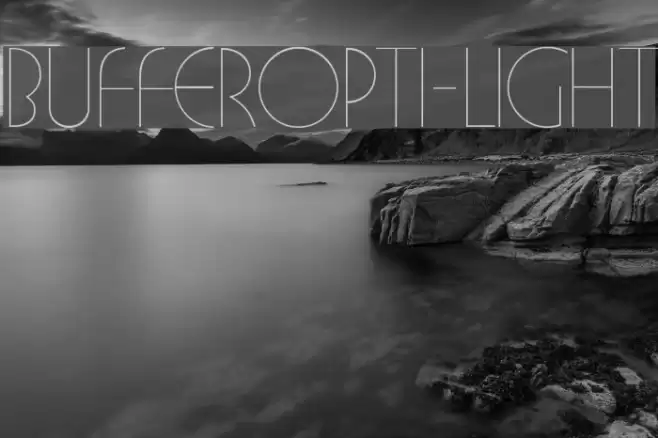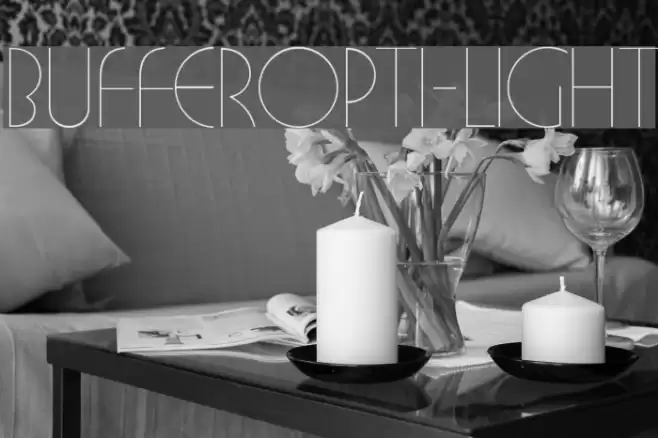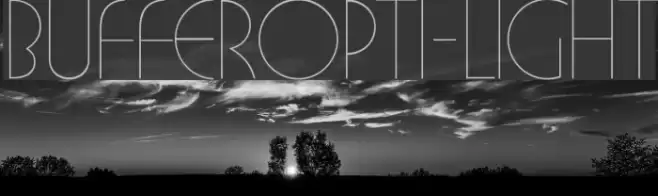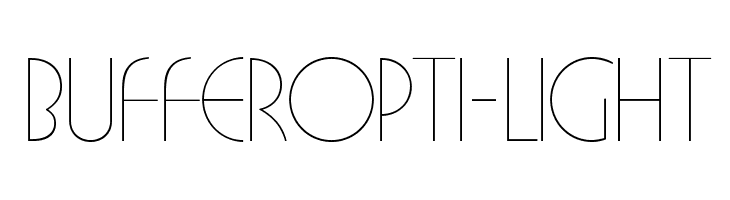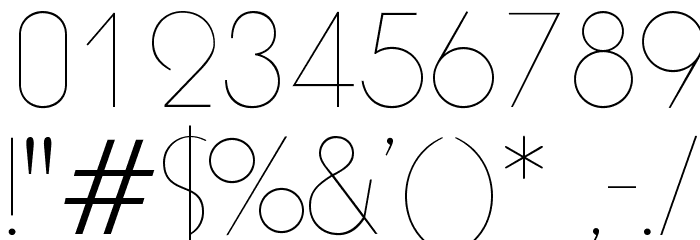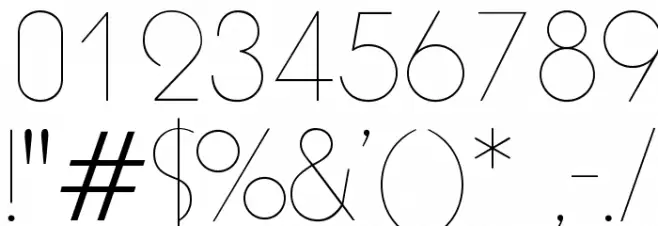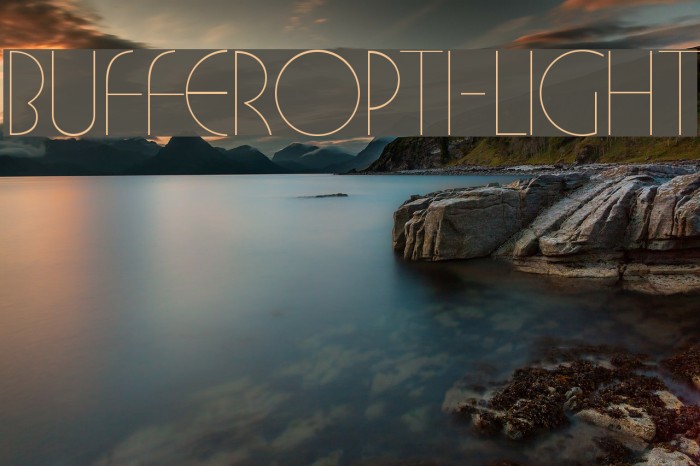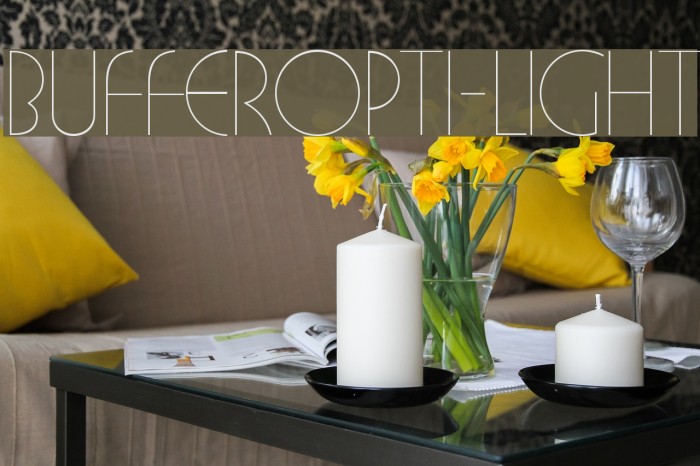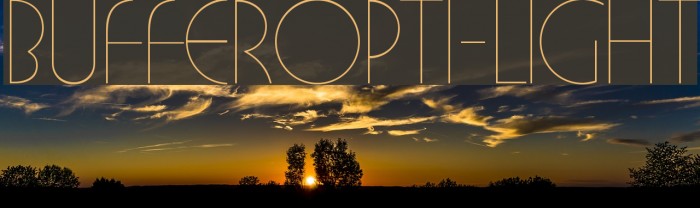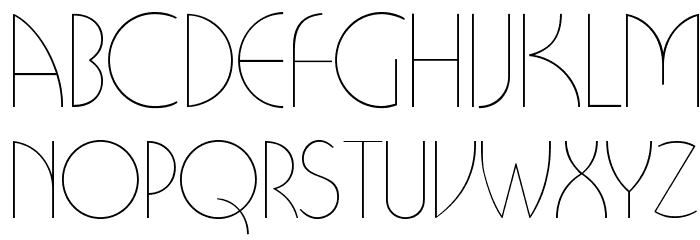
BUFferOpti-Light Font
BUFferOpti-Light Description
This font features a sleek, modern design with thin, elegant lines and a geometric structure. The characters are crafted with a minimalist approach, emphasizing clean curves and sharp angles. The uppercase letters exhibit a uniform height, while the lowercase letters maintain a consistent style that complements the uppercase. The numerals are distinct and align well with the overall aesthetic, offering a seamless integration with the alphabet. Special characters are designed with the same attention to detail, ensuring a cohesive look across all glyphs. This font's light weight and open spacing make it ideal for projects that require a sophisticated and airy feel.
A modern, geometric font with thin lines and elegant curves from Uncategorized fonts.
- Proposed Projects: Ideal for branding, editorial design, and minimalist posters.
- Weight: Light
- Character Spacing: Wide
- Use Case: Logos, Headlines